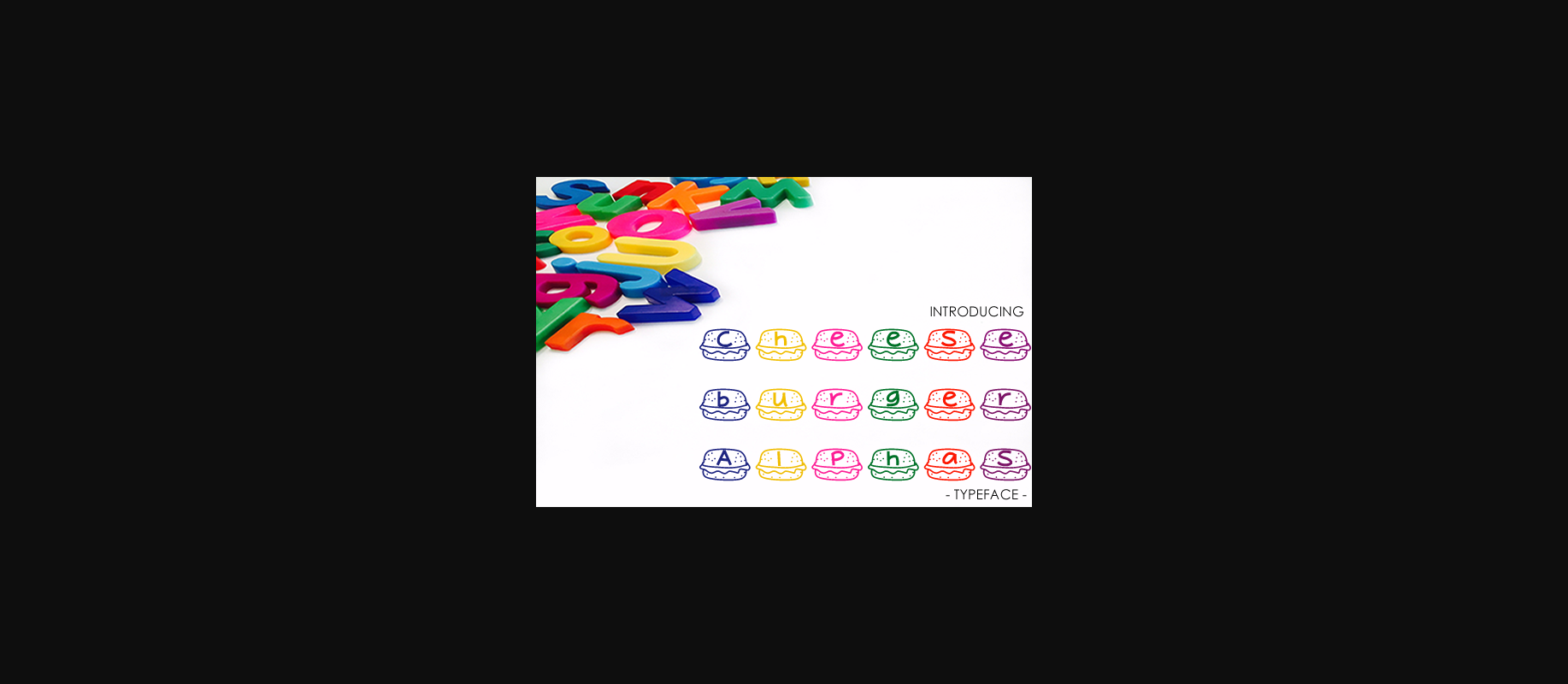
Cheeseburger Alphas Font
About Cheeseburger Alphas Font
Cheeseburger Alphas is a goofy monogram font, ideal for use in a wide range of projects. Each character is surrounded by cheeseburgers, so you can use this is a large range of funny designs.